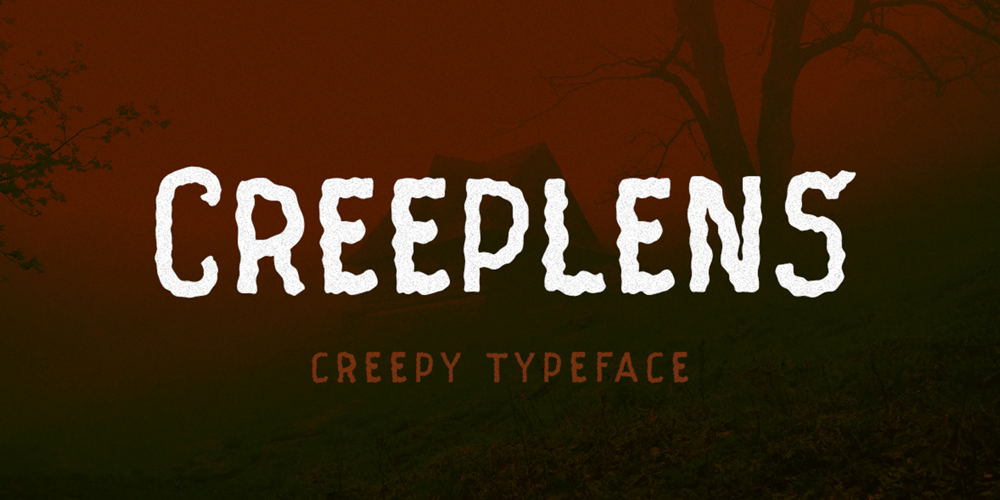
Creeplens Font Family was designed by Hendry Juanda and published by Letterhend. Creeplens contains 1 styles and family package options. Introducing, Creeplens, a creepy typeface. This font perfectly made to be applied especially in poster, and the other various formal forms such as invitations, labels, logos, magazines, books, greeting / wedding cards, packaging, fashion, make up, stationery, novels, labels or any type of advertising purpose.Features : uppercase & lowercase numbers and punctuation multilingual alternates PUA encoded We highly recommend using a program that supports OpenType features and Glyphs panels like many of Adobe apps and Corel Draw, so you can see and access all Glyph variations.